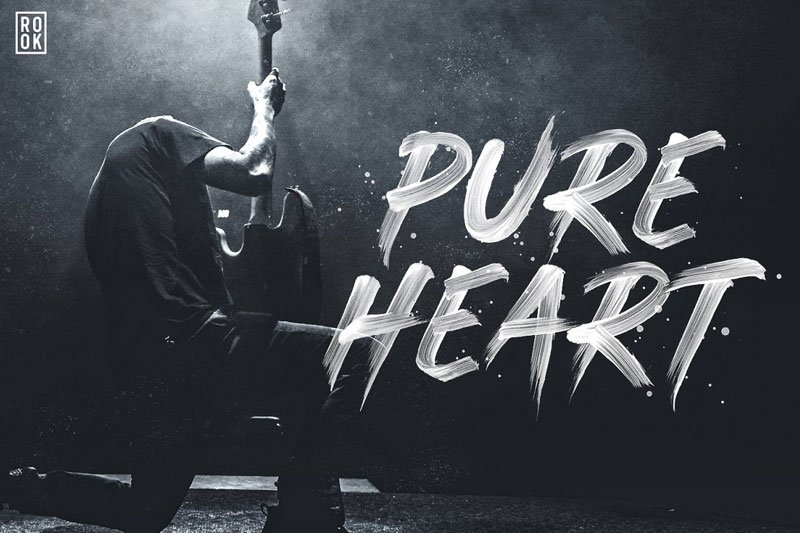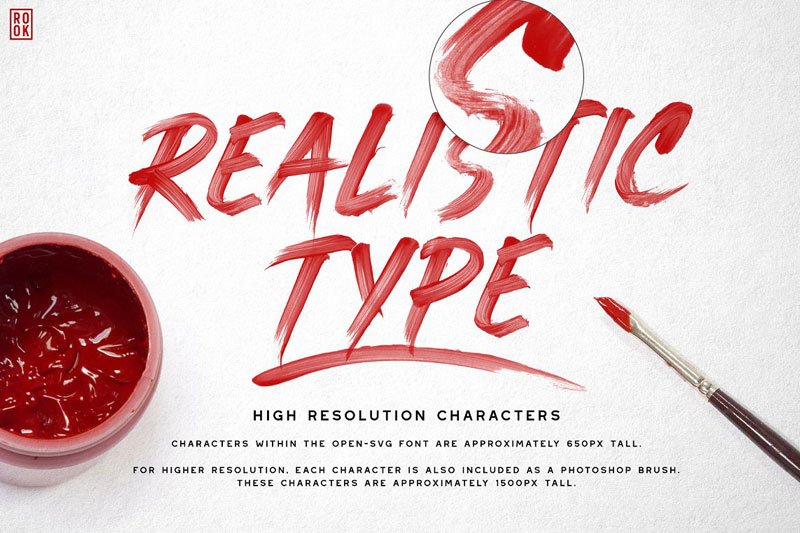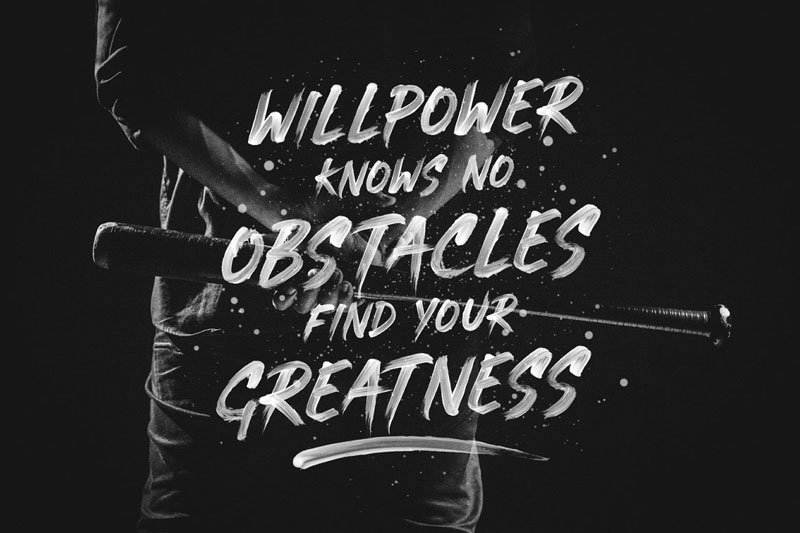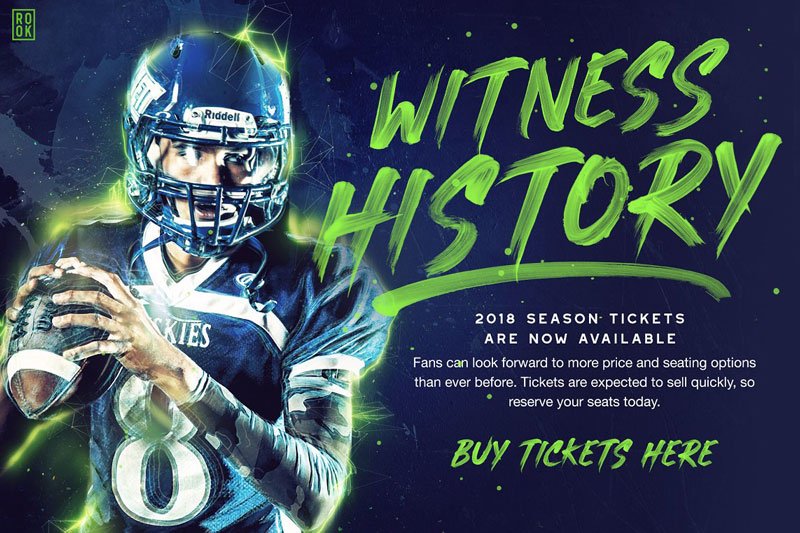
Pure Heart – OpenType SVG Brush Font
Take your design game to the next level with a hyper-realistic font that truly looks hand-painted. Pure Heart Brush Font uses brand new technology that makes way for more authentic looking fonts and is sure to grab the attention of customers and designers alike.
Each letter was carefully painted dozens of times until deemed perfect and then edited to get the texture absolutely perfect. Buy Pure Heart today and be on the cutting edge of new font technology.
So how does it work? Instead of vectorizing the letters, Pure Heart uses actual images and transparency effects in order to get the quality that you see. This is all made possible thanks to the latest developments of the OpenType-SVG format, and the integration of that technology into Photoshop CC 2017 and Illustrator CC 2018.